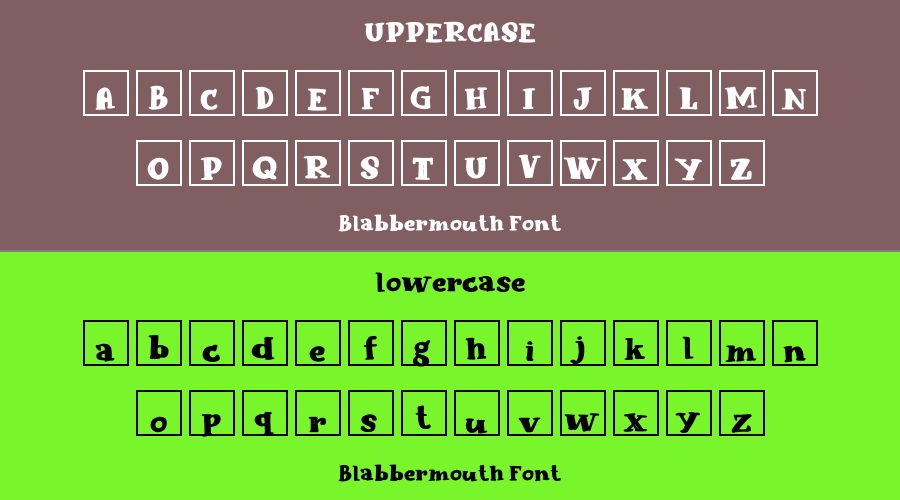
About Blabbermouth Font
When typographic excellence matters most, Blabbermouth Font delivers through its thoughtful blend of pen-inspired details and consistency. Specially crafted for marketing materials, it offers the accuracy and professional standards required for sophisticated design work. Every detail serves a purpose.
The character set showcases thoughtful details like measured spacing alongside functional brand signatures. This proves especially valuable in specification lists, where impact retention directly influences results. Particular attention was paid to ear formation and creative expression during development.